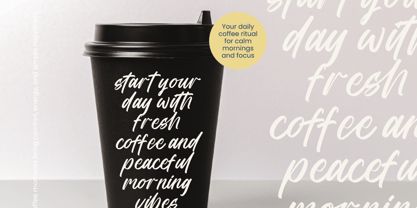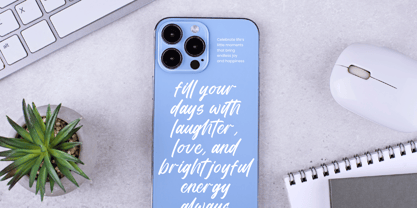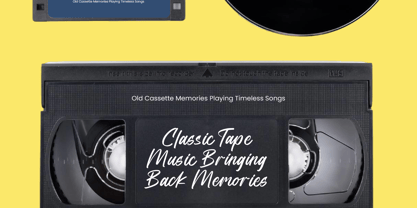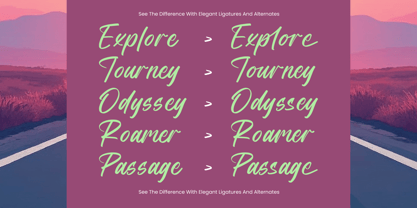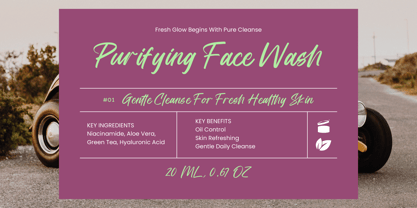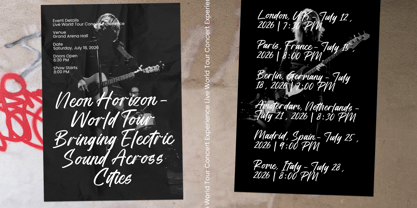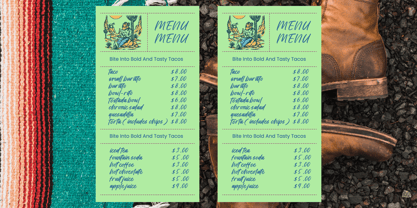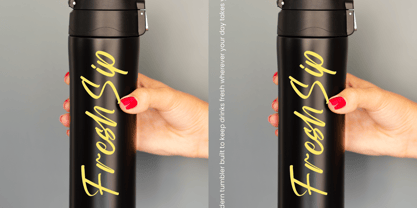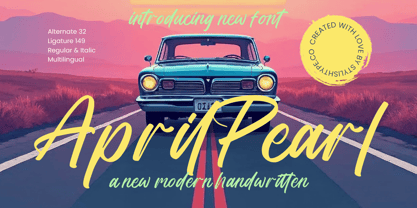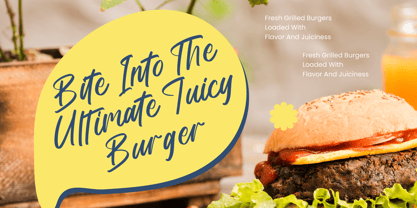
April Pearl
by Stylishtype Studio
The April Pearl Font Family was designed by Heru Utama Putra and published by Stylishtype Studio. April Pearl contains 2 styles and family package options. More about this family
April Pearl – Modern Handwritten Script Font April Pearl is a modern handwritten script font crafted with smooth flowing strokes and expressive brush-style movement. Inspired by natural handwriting and contemporary lettering styles, this font brings a relaxed yet stylish personality to modern design projects. The elegant curves and dynamic strokes create a natural rhythm that makes the typography feel lively and authentic. Its clean handwritten structure ensures readability while maintaining a stylish handwritten character. April Pearl includes a collection of alternate characters and ligatures that allow designers to create unique lettering compositions. The addition of regular and italic styles provides flexibility for creating expressive typography, layered text effects, and creative branding visuals. This font is ideal for projects that require a friendly handwritten appearance combined with modern elegance.